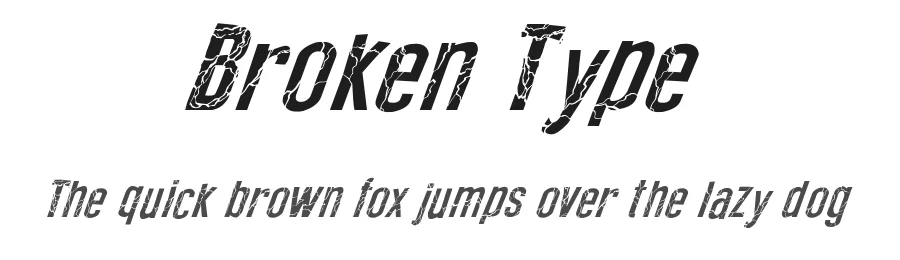
About Basic Header Font
| Designer | Max Infeld |
Basic Header Font is a decorative font that shines as a display or heading face. Pair it with a clean sans-serif or serif font for body text β the contrast creates a clear hierarchy while the two styles stay balanced and easy to read.